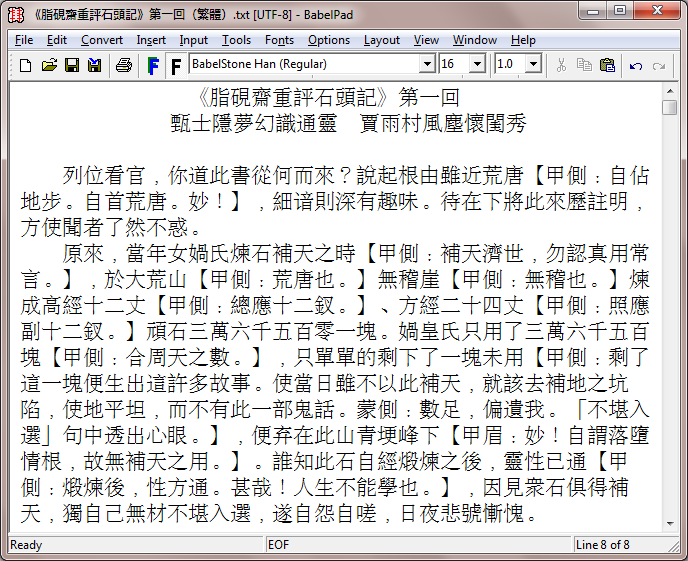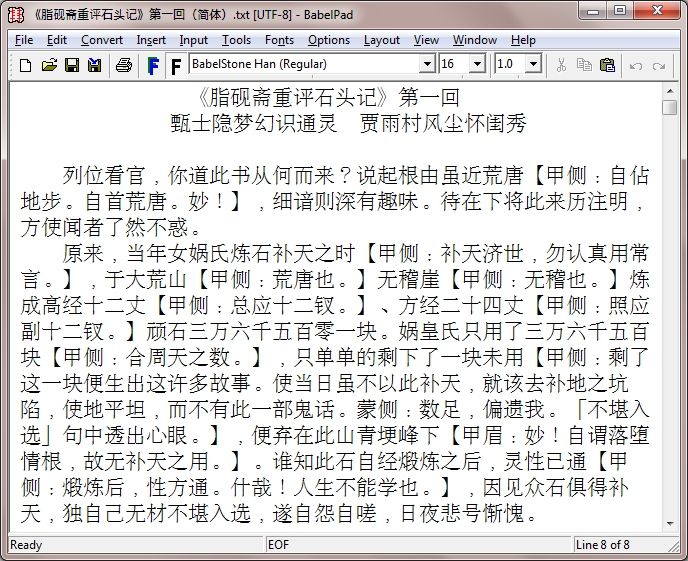
BabelStone Han v. 15.1.4 is a free Unicode CJK font with over 57,700 Han characters (hanzi, kanji, hanja), and 62,524 Unicode characters in total. It is a Song/Ming style (宋体/明體) font, with glyphs modelled on the official character forms used in the People's Republic of China, and is primarily intended for writing Modern Standard Chinese, Classical Chinese, and various Sinitic languages and dialects. However, it also includes a large number of characters used for Japanese, Korean, Vietnamese (Chữ Nôm), and Zhuang (Sawndip). For Chinese it covers both traditional form characters and simplified form characters (it has full coverage of all Chinese simplified characters included in Unicode, as well as all corresponding traditional form characters). The font also includes many rare or archaic characters that are not found in most CJK fonts, as well as many characters used for the scholarly transcription of Early Chinese texts written on bone, bronze, wood, bamboo, and silk. The current version of BabelStone Han supports Unicode 15.1 which was released on 12 September 2023.
BabelStone Han was created by merging the "AR PL Mingti2L Big5" font (13,068 CJK Unified Ideographs) and "AR PL SungtiL GB" font (6,763 CJK Unified Ideographs), which were both released by Arphic Technology (文鼎科技) in 2001 under the original Arphic Public License [see below]. The merged font, comprising 14,907 CJK Unified Ideographs, was then converted to Unicode mappings, and has since been expanded to cover a wide range of traditional and simplified characters in the main CJK block as well as the CJK Extension A, B, C, D, E, F, G, H and I blocks. The original CJK glyphs have been modified where appropriate to match the G-source glyphs given in the Unicode code charts.
This font is under continuous development, as tens of thousands of additional CJK ideographs are scheduled for inclusion in Unicode over then next few years. I intend to add as many of these new characters to BabelStone Han as I can, but I will never be able to include anywhere near all the CJK ideographs that have been and will be added to Unicode, so I am concentrating on G-source additions (i.e. characters used in China). I am currently intending to complete coverage of all CJK Ext. A characters by September 2024, with the release of V. 16.0.0. However, if there are any characters that you would like to have added to BabelStone Han urgently just let me know (email) and I will try to fast-track their inclusion in the font. Please also let me know if you notice any glyph errors.
As version 15.1.1 reached the maximum glyph limit of 65,535 glyphs, from version 15.1.3 onwards all PUA characters in the range E080 through F8DF have been removed from the main BabelStone Han font, and are only available in the BabelStone Han PUA font.
Traditional Chinese Text
Simplified Chinese Text
BabelStone Han includes a total of 62,524 Unicode characters (62,412 named Unicode characters and 112 Private Use Area characters), and has a total of 63,157 glyphs. The font includes coverage for a wide range of Han ideographs and Unicode symbols as listed in the table below. The font is a dual-width font, with a mixture of full-width characters and half-width characters, as indicated in the column headed "Character Width" (a few symbol characters are multiple half-width character width).
Table 1 2nd stage simplified glyph forms mapped to the corresponding standard simplified form of the character. |
Table 1 and Table 2 2nd stage simplified glyph forms mapped to the corresponding standard simplified form of the character. |